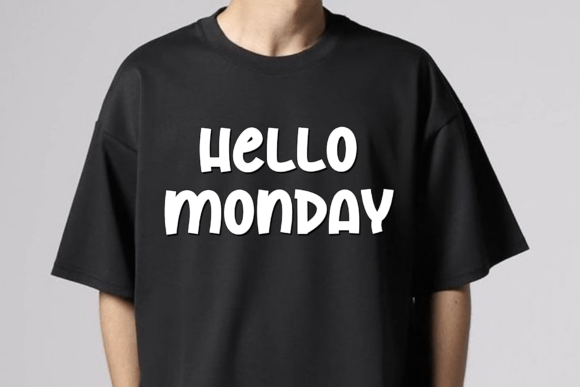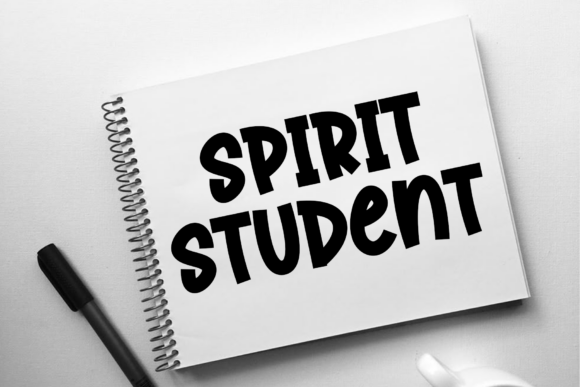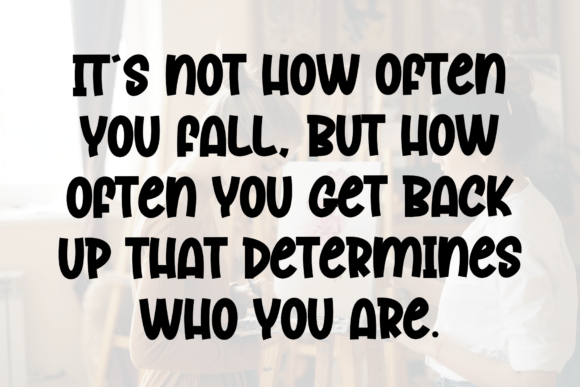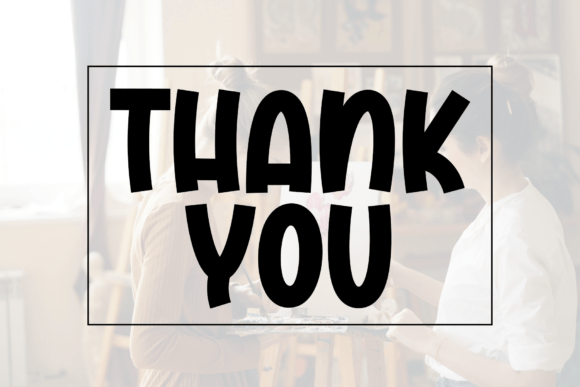
Find Your Perfect Match: The Creative Teacher Font
You know that feeling when you stumble upon the perfect font for your project? It’s like a creative high-five from your brain to your design skills. That’s exactly what happens when you discover the Creative Teacher Font – a neat and casual display font that effortlessly blends clarity with a relaxed, approachable vibe.
With its clean lines and friendly letterforms, the Creative Teacher Font is perfect for headlines, posters, packaging, and branding that aims to feel modern yet laid-back. This versatile font is a valuable addition to any designer’s toolkit, offering a balanced structure and playful energy that brings personality to any project without overwhelming the message.
- Font Family: A unique and stylish font designed specifically for educational materials, posters, and presentations.
- Unique Characteristics: The font features a playful, handwritten style with subtle flair and texture, adding a touch of creativity to educational materials.
Designer Review: Creative Teacher Font
As a designer, I was excited to dive into the Creative Teacher Font, a new addition to the world of educational fonts. I must say, it’s a mixed bag, but let’s start with what works well. ✨
- Unique Character**: The font has a playful, whimsical feel that immediately draws the user in. It’s perfect for creating eye-catching titles, headings, and educational materials.
- Clear Legibility**: Despite its creative flair, the font remains clear and easy to read, even at smaller font sizes.
- Excellent for Educational Content**: The font’s aesthetic aligns perfectly with educational content, making it an excellent choice for teachers, students, and educational institutions.
However, there are some limitations to consider. ⚠️
- Limited Font Sizes**: The font doesn’t perform well at very small font sizes, and it may become pixelated or difficult to read.
- No Support for Extended Characters**: The font lacks support for extended characters, which may limit its use in certain languages or contexts.
Overall, I’d say the Creative Teacher Font is a great choice for educational content, but it’s essential to be aware of its limitations. With proper usage and consideration, it can be a valuable addition to your design toolkit.
Tips and Tricks
For the best results, use Creative Teacher Font in conjunction with bright and playful colors.
Experiment with different font sizes and styles to add visual interest to your designs.
Use Creative Teacher Font to create eye-catching headings and titles.
Creative Teacher Font is perfect for:
Creating educational materials, such as worksheets and lesson plans.
Designing children’s party invitations and decorations.
Developing marketing materials for schools and educational institutions.